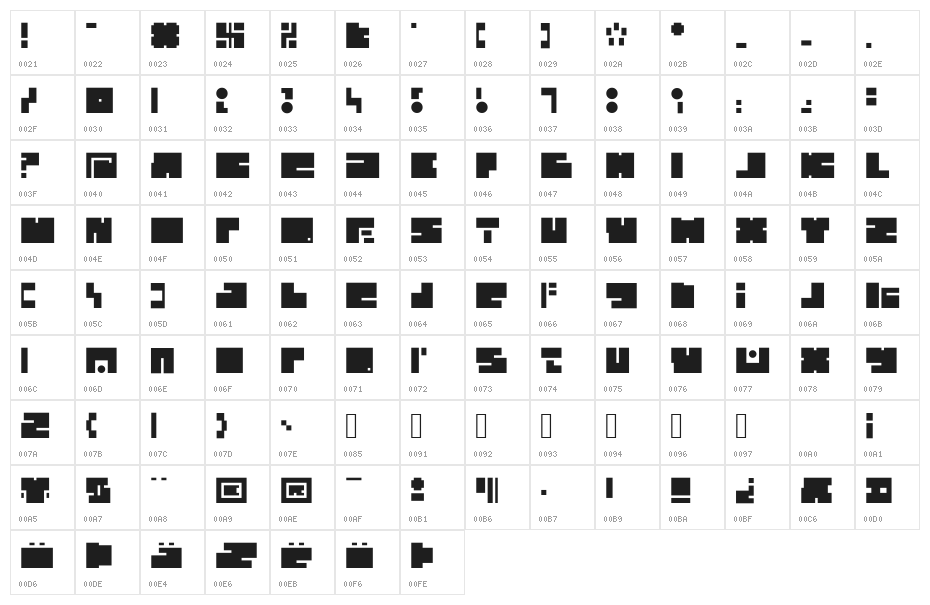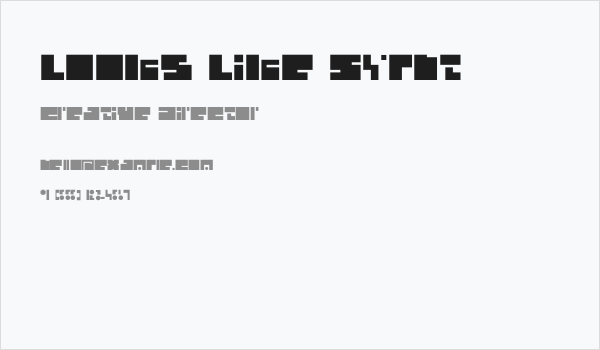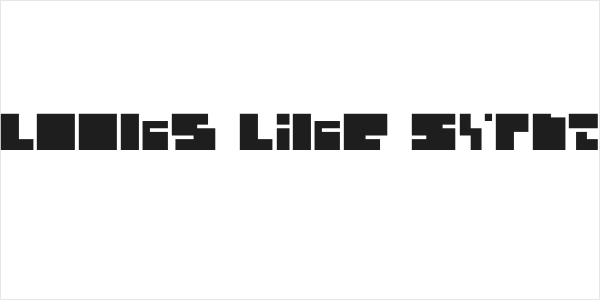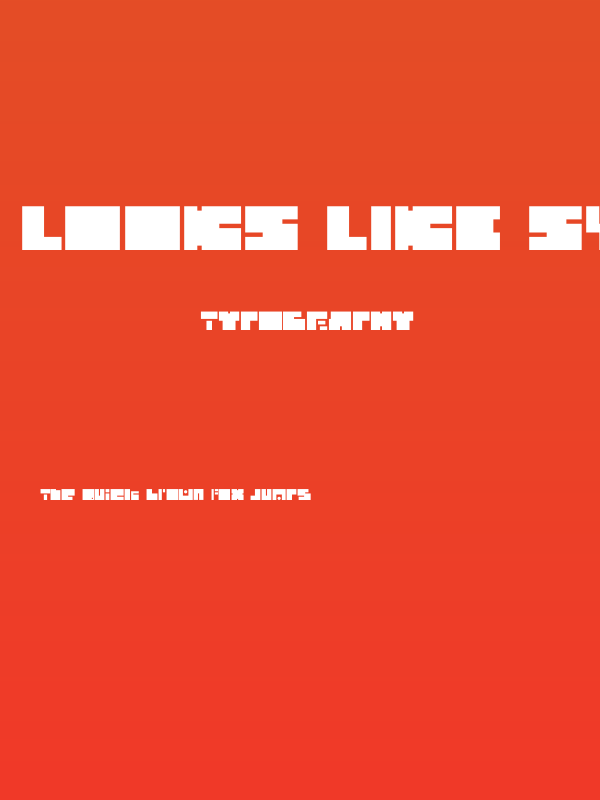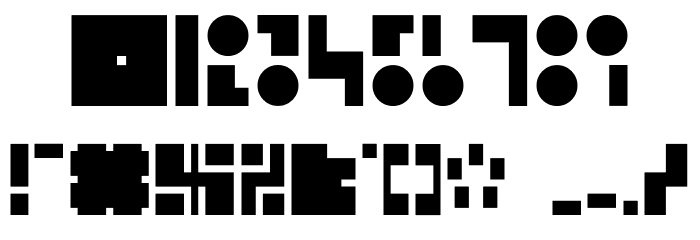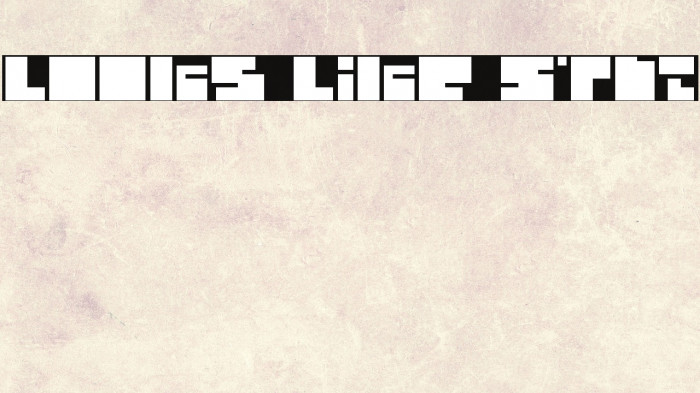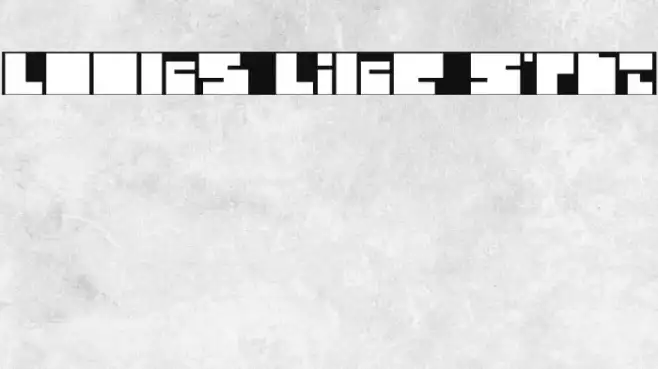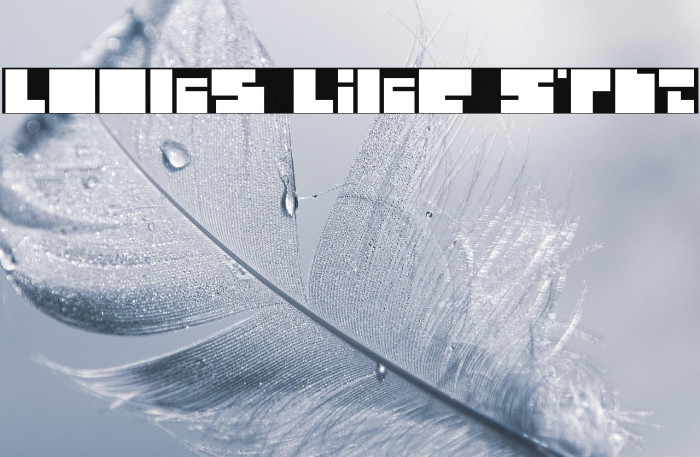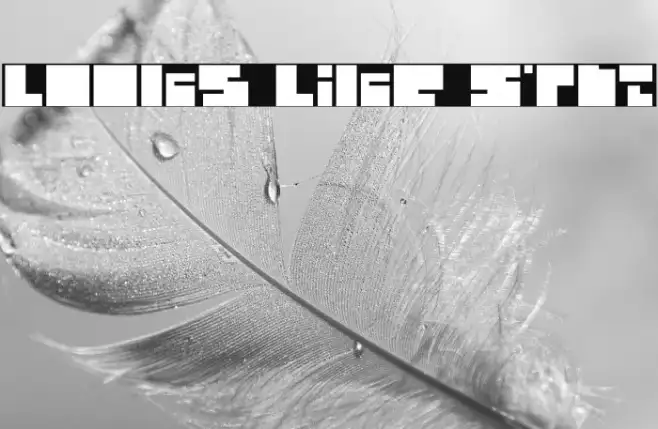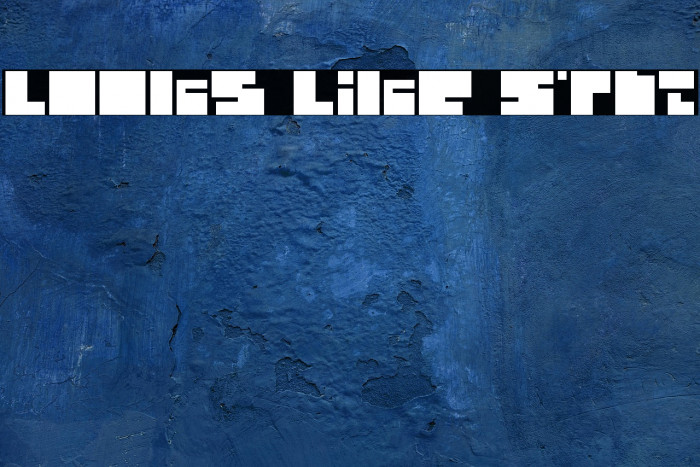
Looks Like S'pht Font
Looks Like S'pht Description
This font features a bold, geometric design with a distinctly futuristic and digital aesthetic. Each character is composed of solid, block-like shapes with minimal curves, creating a highly stylized and abstract appearance. The uppercase and lowercase letters maintain a consistent height, contributing to a uniform look. The numbers and special characters follow the same design principles, ensuring cohesion across all elements. The font's unique style makes it stand out, ideal for projects that require a modern and tech-inspired look.
| Proposed Projects | Ideal for technology branding, video game titles, sci-fi movie posters, and digital art projects. |